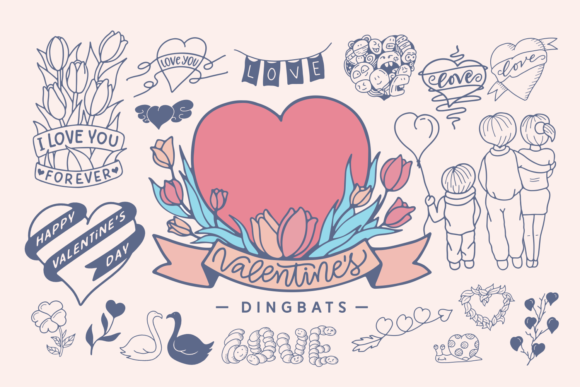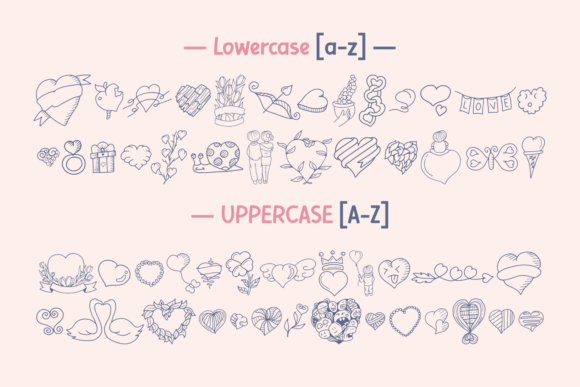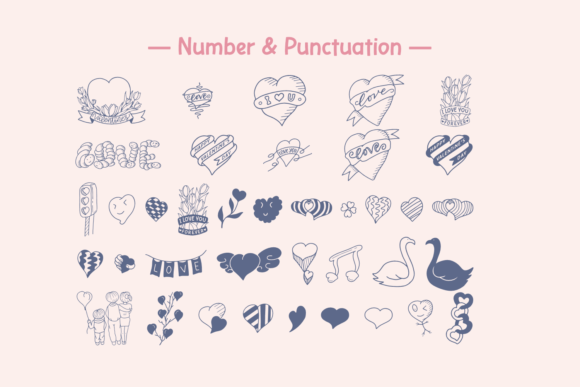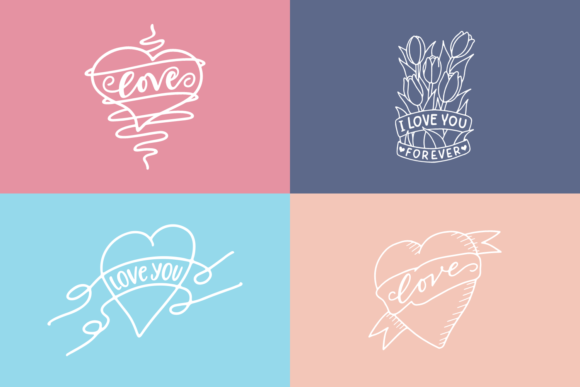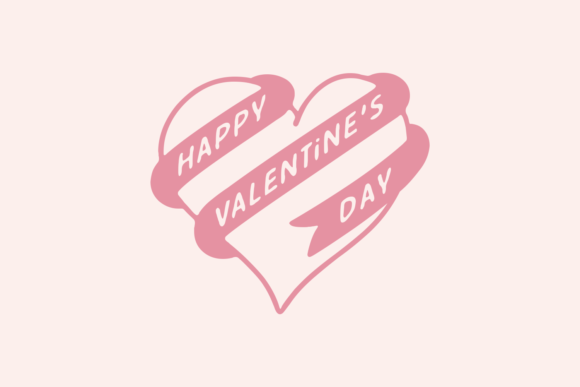
Valentine’s Dingbats Font
About Valentine’s Dingbats Font
“Valentine’s Dingbats” is an adorable and romantic dingbats font that is perfect for expressing love and affection in your design projects. Whether you’re creating love letters, greeting cards, or other romantic-themed designs, this font will add a touch of sweetness and charm. Here are some creative ideas on how to use the “Valentine’s Dingbats” font:
1. Love Letters and Notes: When writing a heartfelt love letter or a sweet note to someone special, incorporate the cute symbols from the “Valentine’s Dingbats” font to enhance the romantic theme. Use the dingbats as decorative elements or as bullet points to emphasize key points or sentiments.
2. Greeting Cards: Design personalized Valentine’s Day cards, anniversary cards, or love-themed cards using the symbols from the “Valentine’s Dingbats” font. Use the cute dingbats to create decorative borders, frames, or focal points. Combine them with romantic typography or handwritten messages to create unique and heartfelt cards.
3. Social Media Graphics: Create eye-catching graphics for social media platforms like Instagram or Facebook with the help of the “Valentine’s Dingbats” font. Use the romantic symbols to design engaging posts, stories, or banners related to love, relationships, or special occasions. The cute and playful nature of the font will add a charming touch to your social media visuals.
4. Scrapbooking: If you enjoy scrapbooking, the “Valentine’s Dingbats” font can be a delightful addition to your pages. Use the dingbats as decorative elements, borders, or embellishments to highlight romantic memories, couples’ photos, or love-themed events. Combine the symbols with patterned paper, photographs, and handwritten captions to create beautiful and personalized scrapbook layouts.
5. Wedding Stationery: If you’re designing wedding invitations, save-the-date cards, or other wedding-related stationery, the “Valentine’s Dingbats” font can help create a romantic and whimsical atmosphere. Incorporate the cute symbols as decorative accents, dividers, or monogram elements to add a touch of romance to your designs.
In summary, “Valentine’s Dingbats” is a cute, useful, and romantic dingbats font that is perfect for design ideas related to love letters, cards, and romantic-themed projects. Whether you’re designing love letters, greeting cards, social media graphics, scrapbook layouts, or wedding stationery, the symbols from this font will add a delightful and charming touch to your creations. Embrace the sweetness of the font and let your love-inspired designs shine!